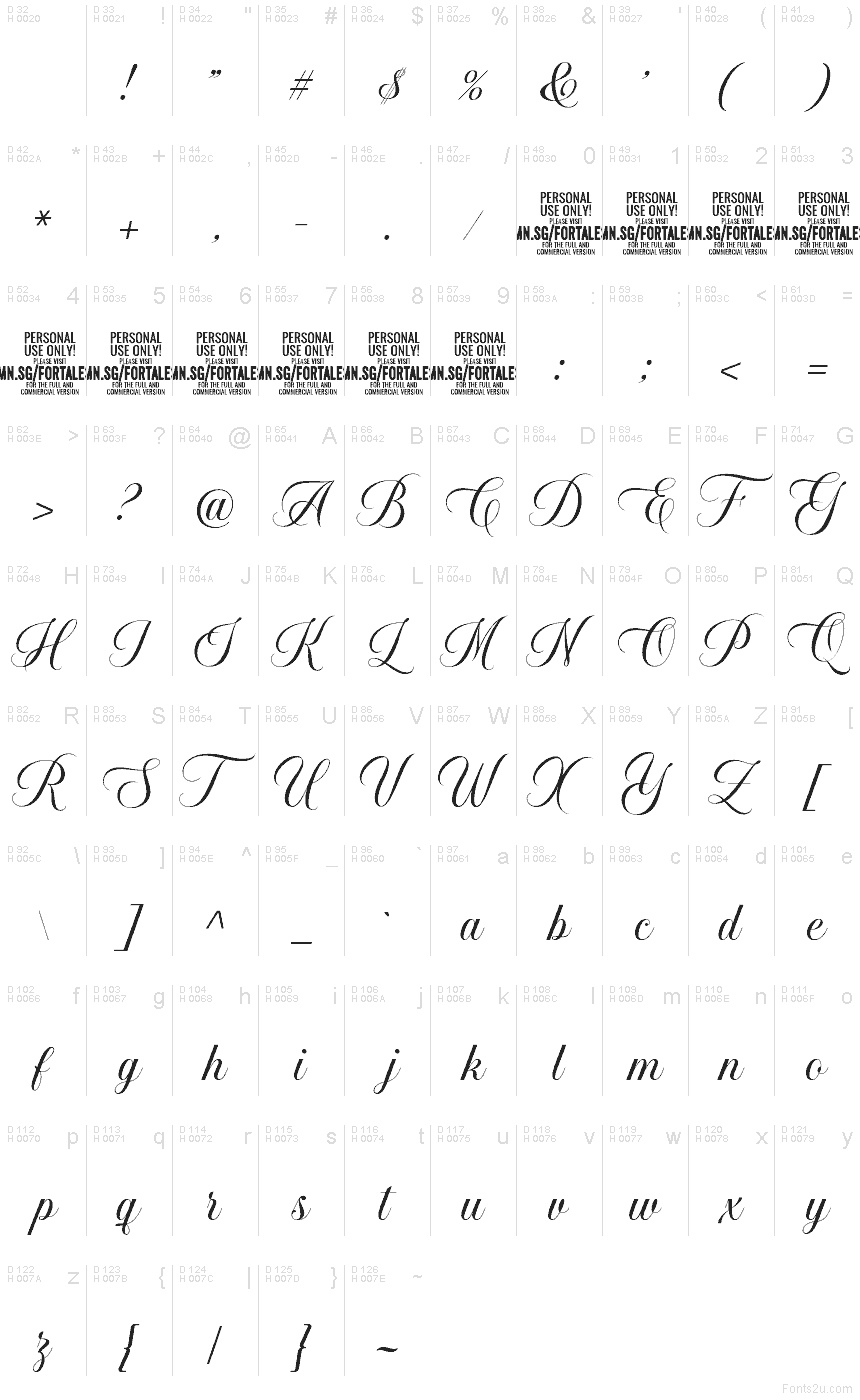
Fortalesia Plain PERSONAL USE Regular
Fortalesia Plain font by Mans Greback is a free calligraphic script font in the Fortalesia family that solves a classic dilemma: lush flourish without losing clarity. Its satin-smooth curves, crisp hairlines, and confident thick strokes create a rhythmic flow that reads cleanly at display sizes. Sweeping capitals add drama, while the steady slant and even spacing keep lines elegant instead of fussy.
Using Fortalesia Plain, your titles glide with a refined, inky presence—just right for wedding invitations, boutique logos, perfume packaging, restaurant menus, certificate headings, and event posters. This free font shines when set large to show off those needle-thin contrasts; keep tracking modest and pair it with a quiet sans or serif for body copy to let the script take center stage.